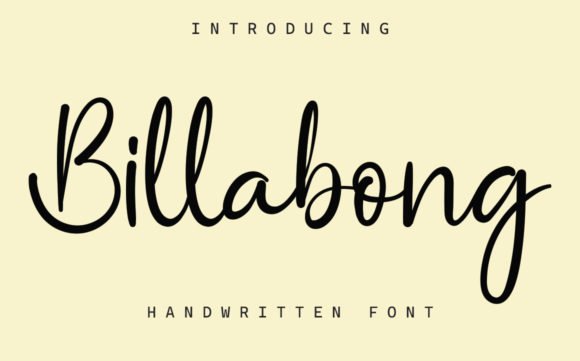
About Billabong Font
“Billabong” is a stylish and flowing handwritten font that brings a sense of casual elegance to a variety of design projects. With its unique letterforms and relaxed vibe, this font is versatile and can be used to enhance the visual appeal of various applications.
When it comes to wall displays, “Billabong” can create eye-catching and artistic visuals. Its flowing strokes and distinctive style can add a touch of creativity and personality to your displays, making them stand out and capturing attention.
For weddings, “Billabong” can be a great choice for creating informal and laid-back wedding invitations. Its relaxed yet stylish appearance can set a friendly and inviting tone, making the invitations feel approachable and welcoming.
In branding, “Billabong” can be used to design social media post logos and advertisements that exude a casual and contemporary feel. Its handwritten charm can help convey a brand’s personality and create a sense of authenticity.
For product packaging and design, “Billabong” can add a touch of personality and informality to labels, packaging, and product designs. Its flowing and friendly lettering can add a human touch to your products and resonate with customers.
In photography and watermarking, “Billabong” can create playful and artistic watermarks that add a unique signature to your images. Its casual and stylish letterforms can enhance the overall visual appeal of your photographs.
For invitations, stationery, labels, and various projects that require a touch of impressive typography, “Billabong” can bring a fresh and casual elegance to your designs. Its versatility and relaxed style make it a valuable choice for designers looking to create approachable and visually appealing content.